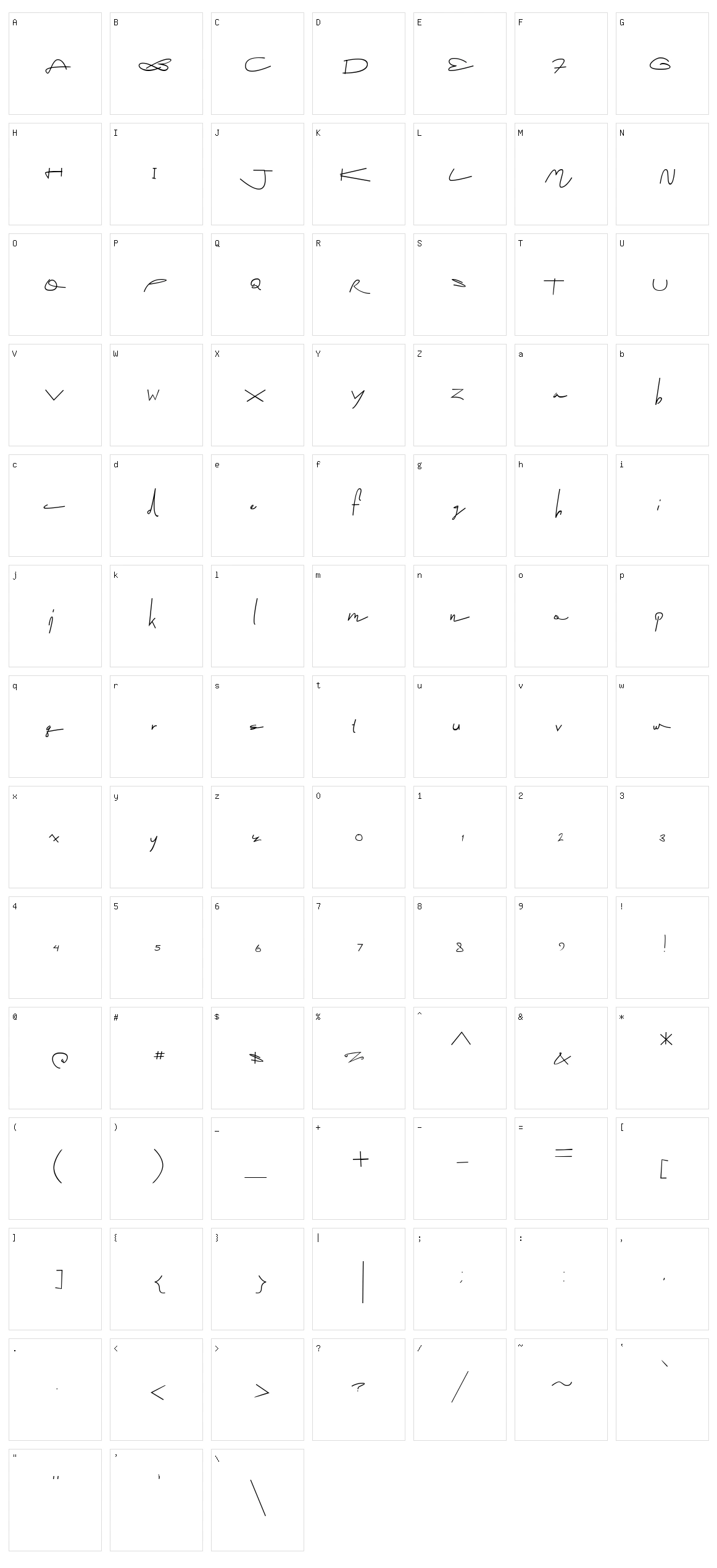
The free font Picablo Fentier is carefully designed by Sigit Nur Wicaksono, showcasing a thoughtful balance of creativity and usability and falls under the Script font style. When you download the ZIP file, it contains only 13.73 KB of font files, making it lightweight and quick to download. Please review the license details below to understand permitted usage and distribution rights. If license information is not available, we recommend using this font for personal projects only or contacting the author directly for commercial usage permissions.